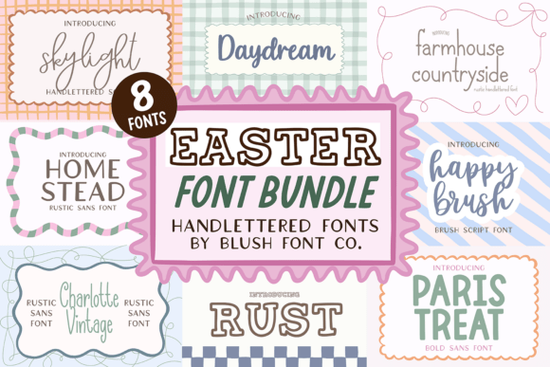
Looking for a fresh, festive way to add springtime charm to your projects? The Easter Bundle Font is a thoughtfully curated collection that blends handlettered brush scripts with clean, modern sans serifs perfect for anyone creating Easter crafts, seasonal signs, or digital designs. Whether you're using a Cricut machine, designing t-shirts, or making printable decorations, this bundle brings a soft, playful energy that feels both timeless and current.
What’s in the Easter Bundle Font?
The collection includes a mix of styles designed to give your work variety and personality. You’ll find:
- Handlettered brush script fonts with gentle swashes and natural flow ideal for adding a personal touch to invitations, cards, or wall art.
- Clean sans serif fonts with crisp lines and balanced spacing, great for headlines, labels, or minimalist layouts.
- Multiple weights and variations so you can mix and match without cluttering your design files.
These fonts were made with real creative use in mind no gimmicks, just usable typefaces that feel light, cheerful, and easy to work with across different projects.
How can I use these fonts in my craft or business?
If you’re into DIY crafting, these fonts are ready to go on vinyl, paper, or fabric. Use them for Easter egg tags, bunny-shaped banners, or custom tote bags. For print-on-demand sellers, the clear readability and stylish flair make them perfect for mugs, stickers, and apparel designs.
Designers love how the brush scripts add warmth to digital illustrations, while the sans serifs keep things tidy and professional. Try pairing a bold script with a thin sans serif for contrast great for social media graphics or seasonal newsletters.
Why do these fonts stand out from others?
Many holiday font bundles feel repetitive or overly busy. This one avoids that by focusing on balance: playful but not childish, elegant but not stiff. The subtle imperfections in the brush strokes give each letter a handmade quality, which works especially well for small businesses wanting to feel authentic and approachable.
With the Easter Bundle Font, you’re not just getting a set of letters you’re gaining a toolkit for spring creativity. Whether you’re crafting for fun or building a brand, these fonts help you express the season with confidence and clarity.